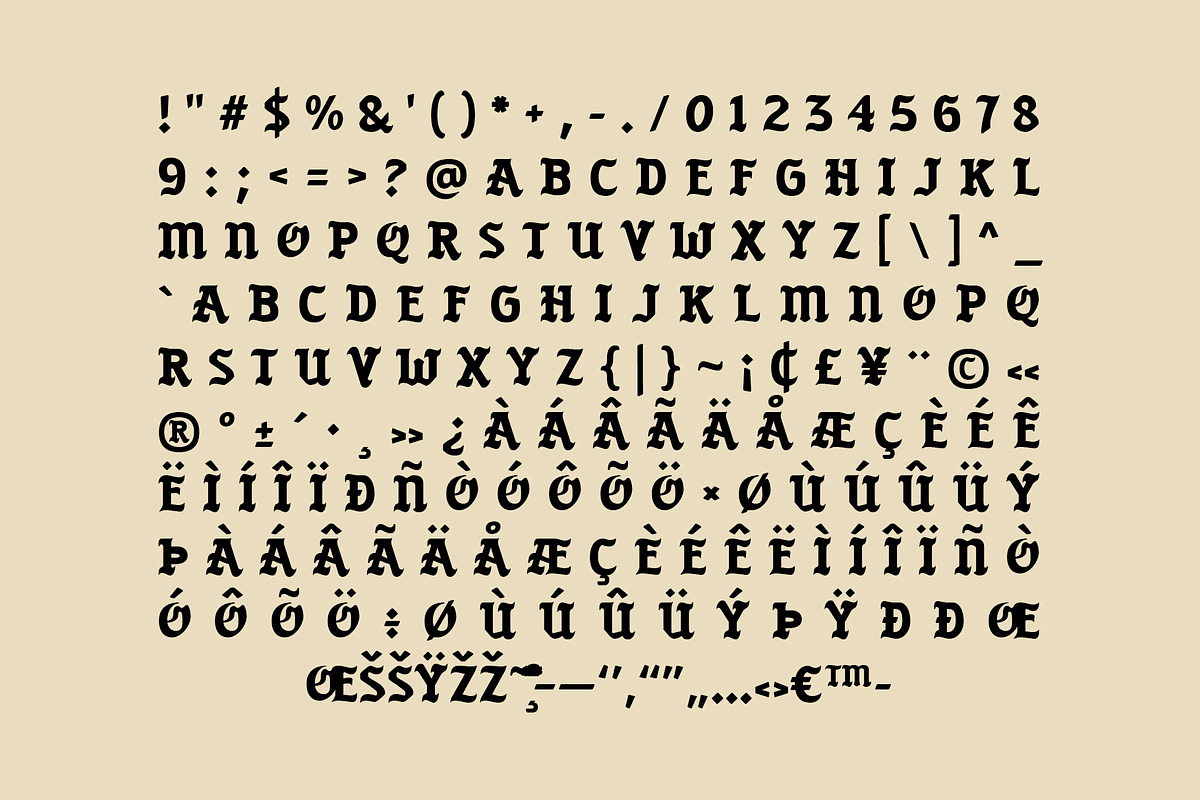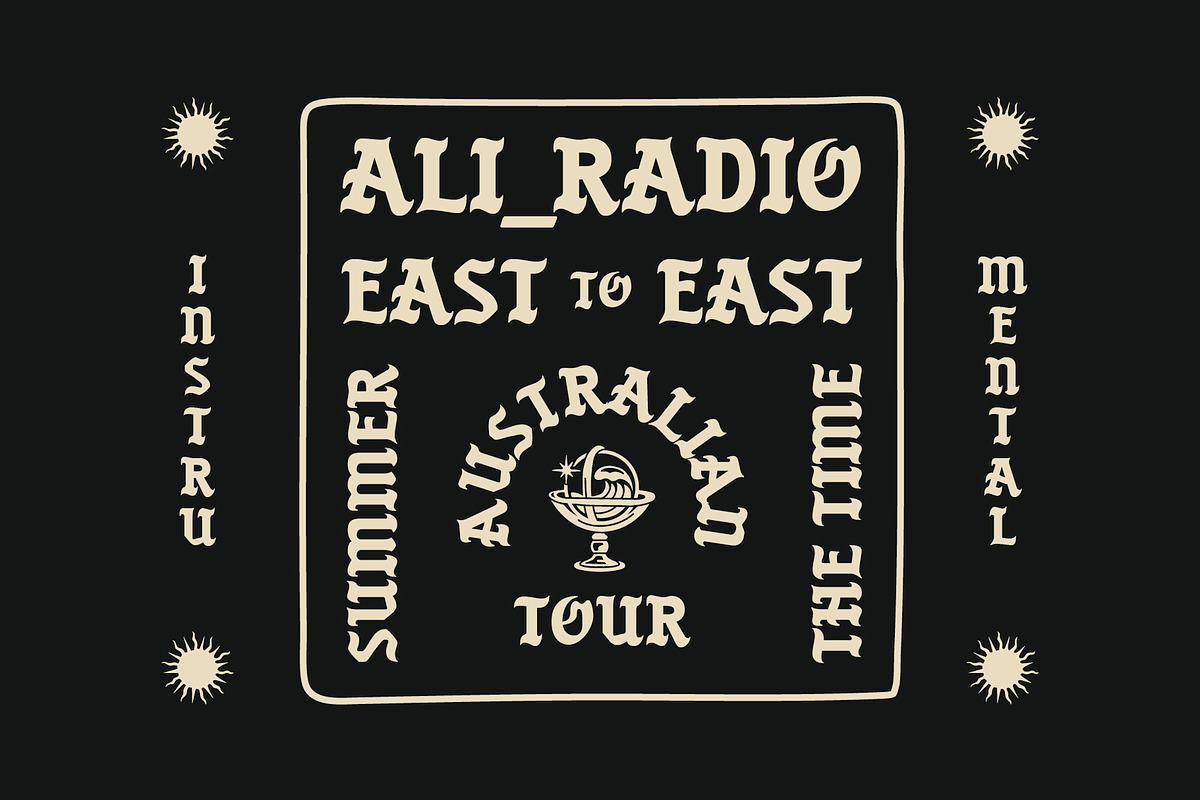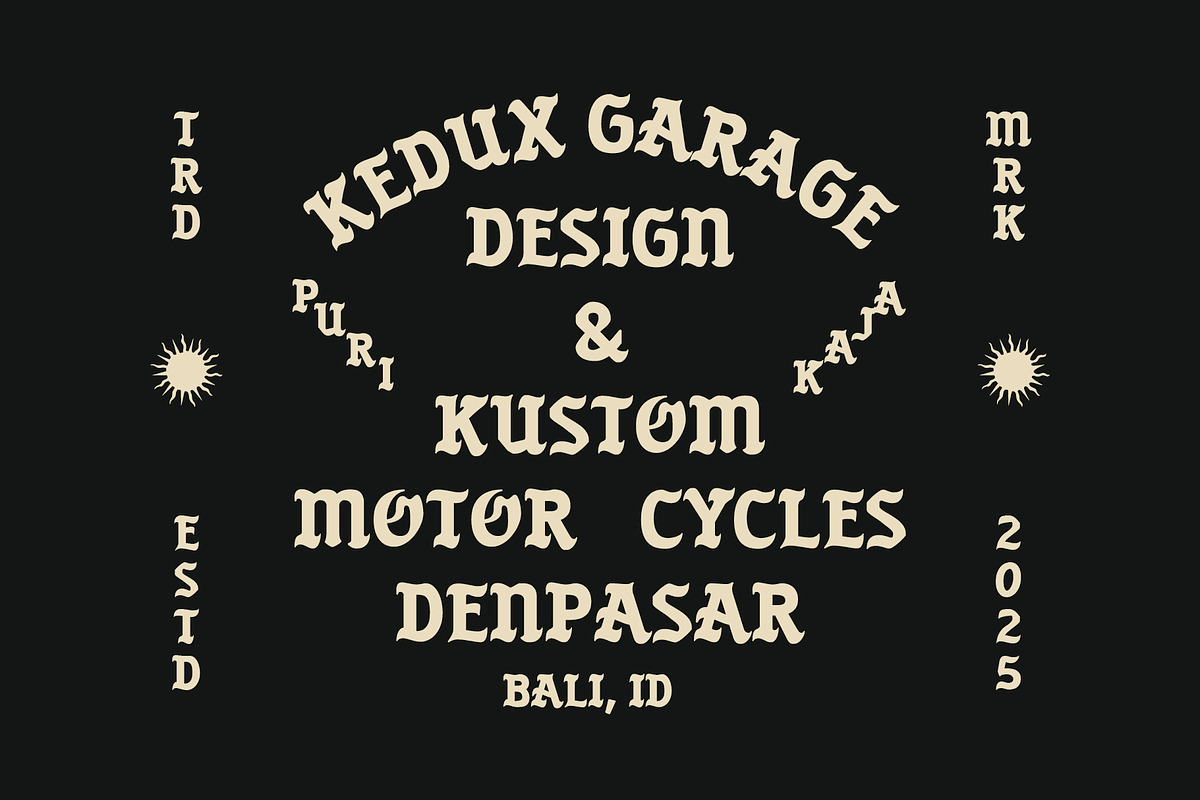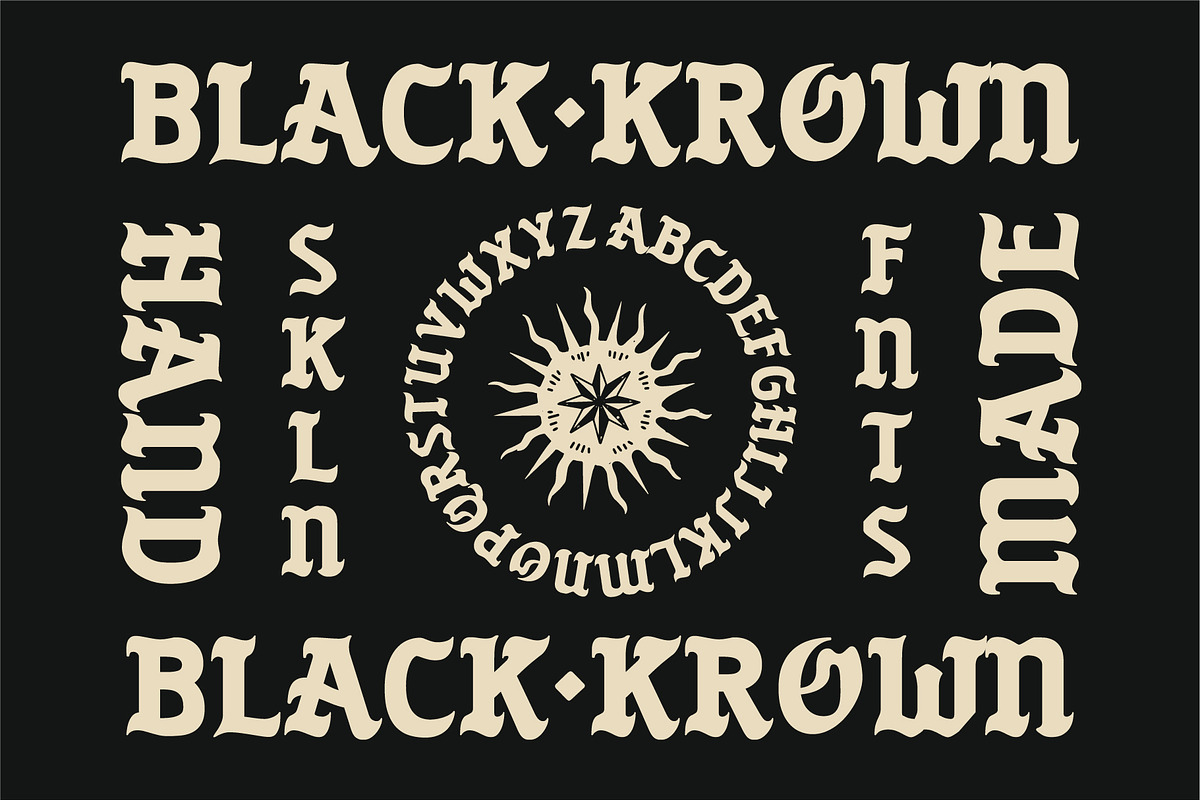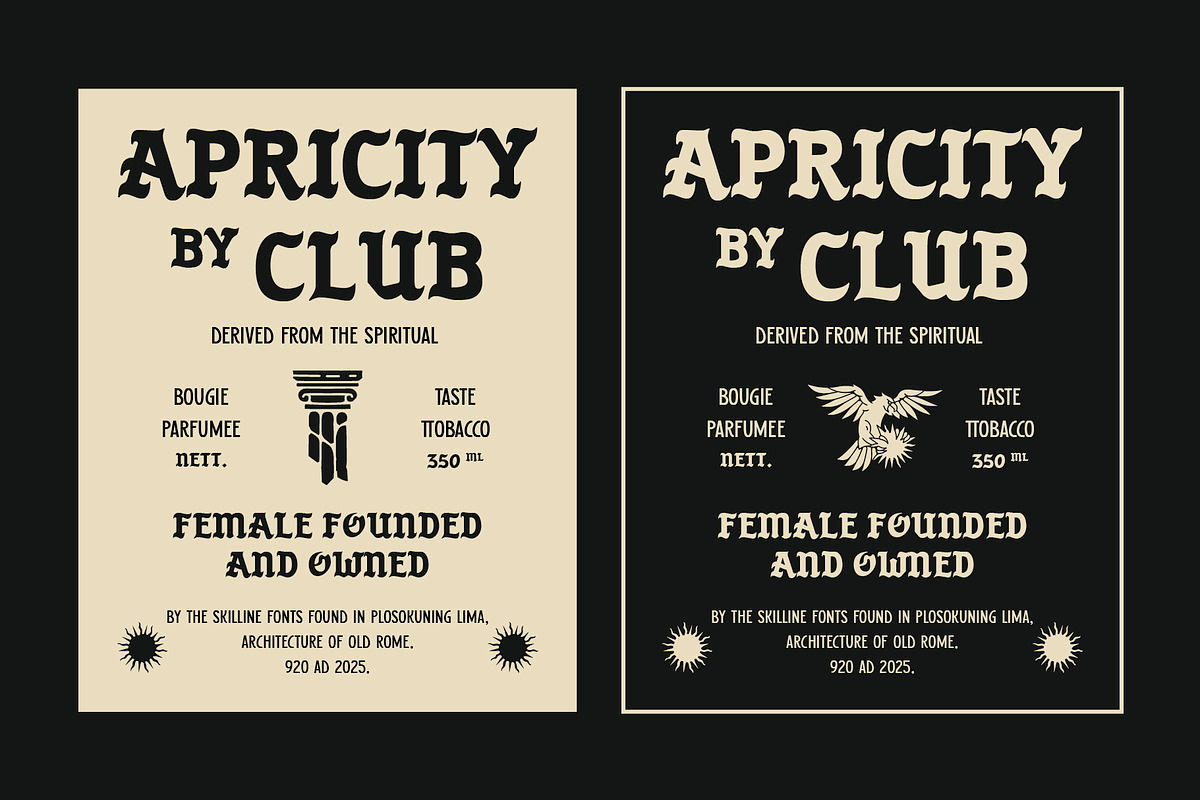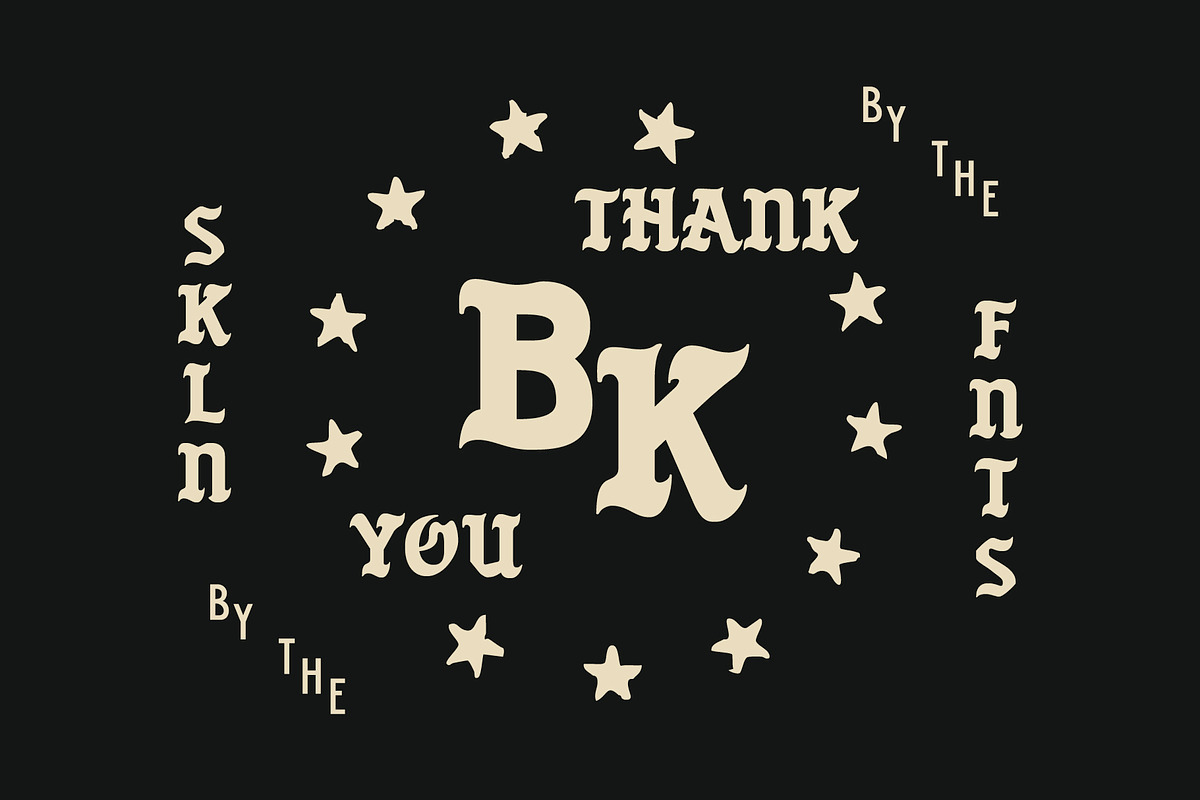
SFC Black Krown
Black Krown is a bold handcrafted medieval display typeface inspired by old-world lettering, gothic sign painting, and Javanese artisan motifs. Its sculpted curves, irregular edges, and mystical ornamental personality give every word a sense of rebellion and heritage. Designed for creators who want a striking, ceremonial, and fierce aesthetic, Black Krown brings a unique blend of tribal energy and medieval boldness perfect for logos, apparel, band merchandise, tattoo-inspired graphics, editorial titles, and anything that needs a raw, handcrafted soul.
Ideal Applications for Black Krown Typeface
Band & music merchandise
Vintage gothic branding
Posters, cover art & editorial titles
Streetwear & apparel graphics
Motorcycle & custom workshop identity
Folklore, tribal, and cultural projects
All Caps Typeface
Handcrafted Gothic Letterforms
Basic Numerals & Punctuation